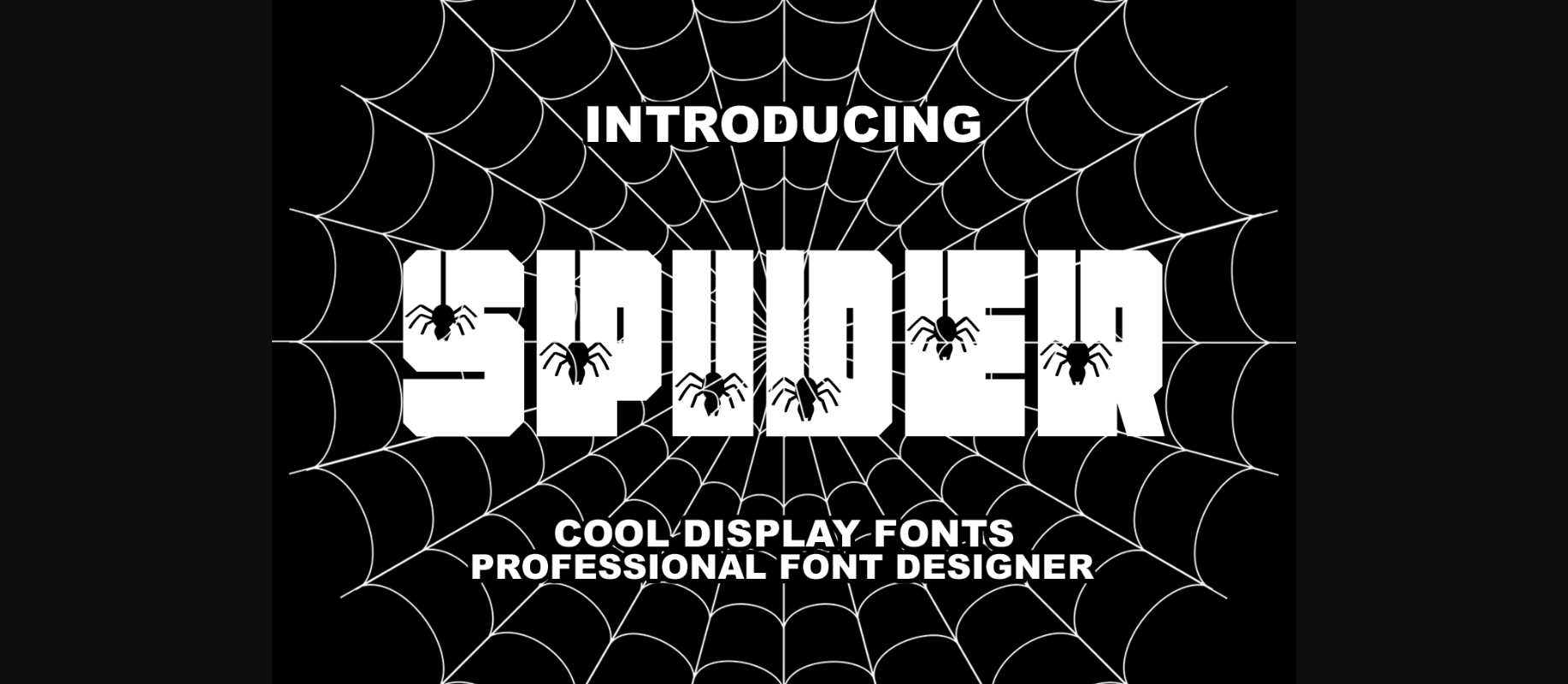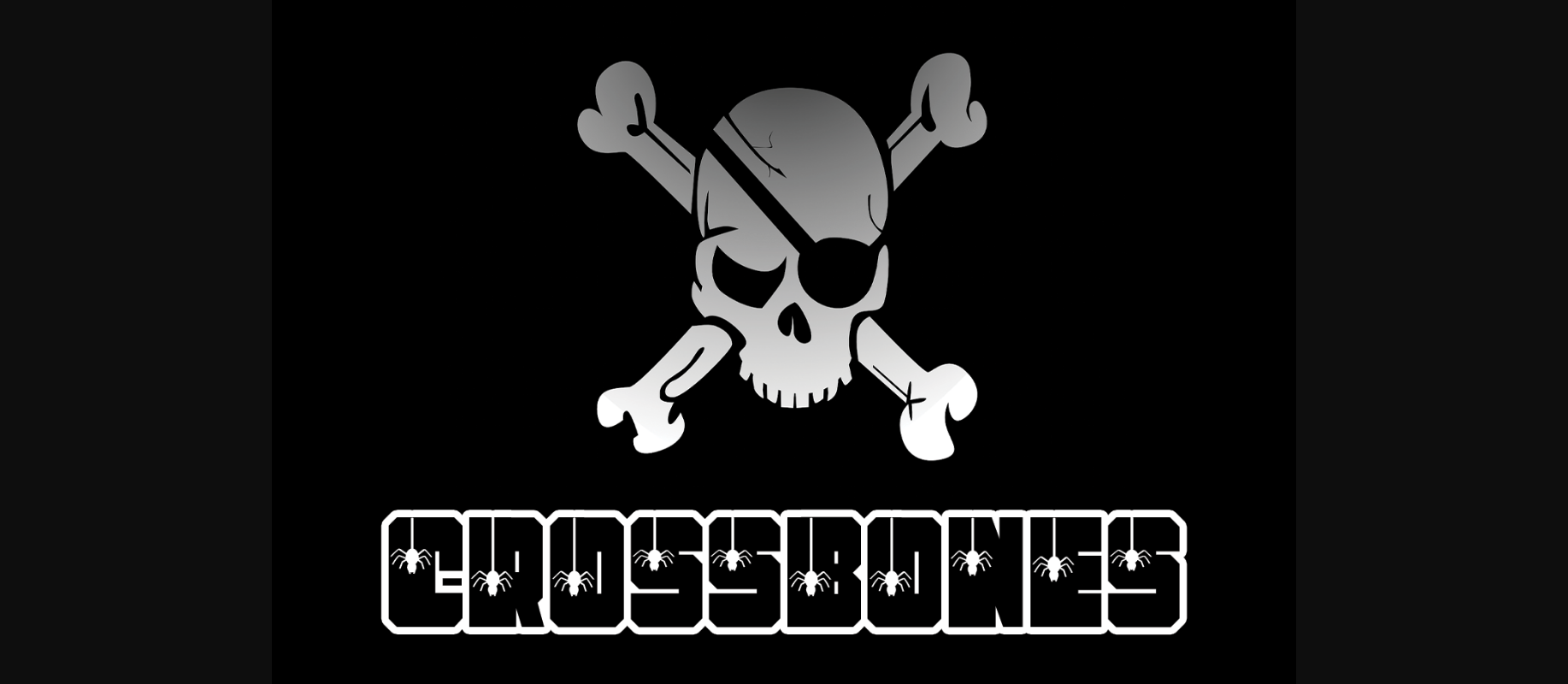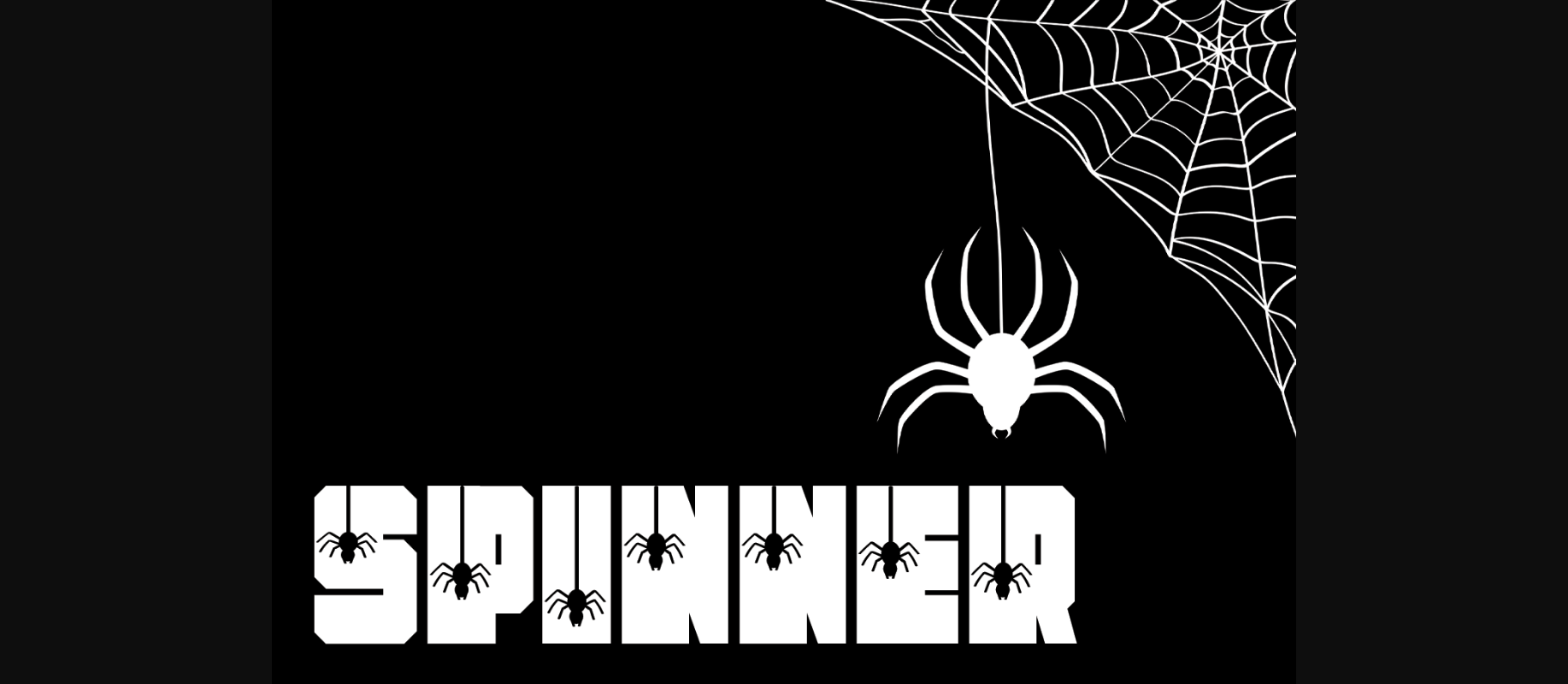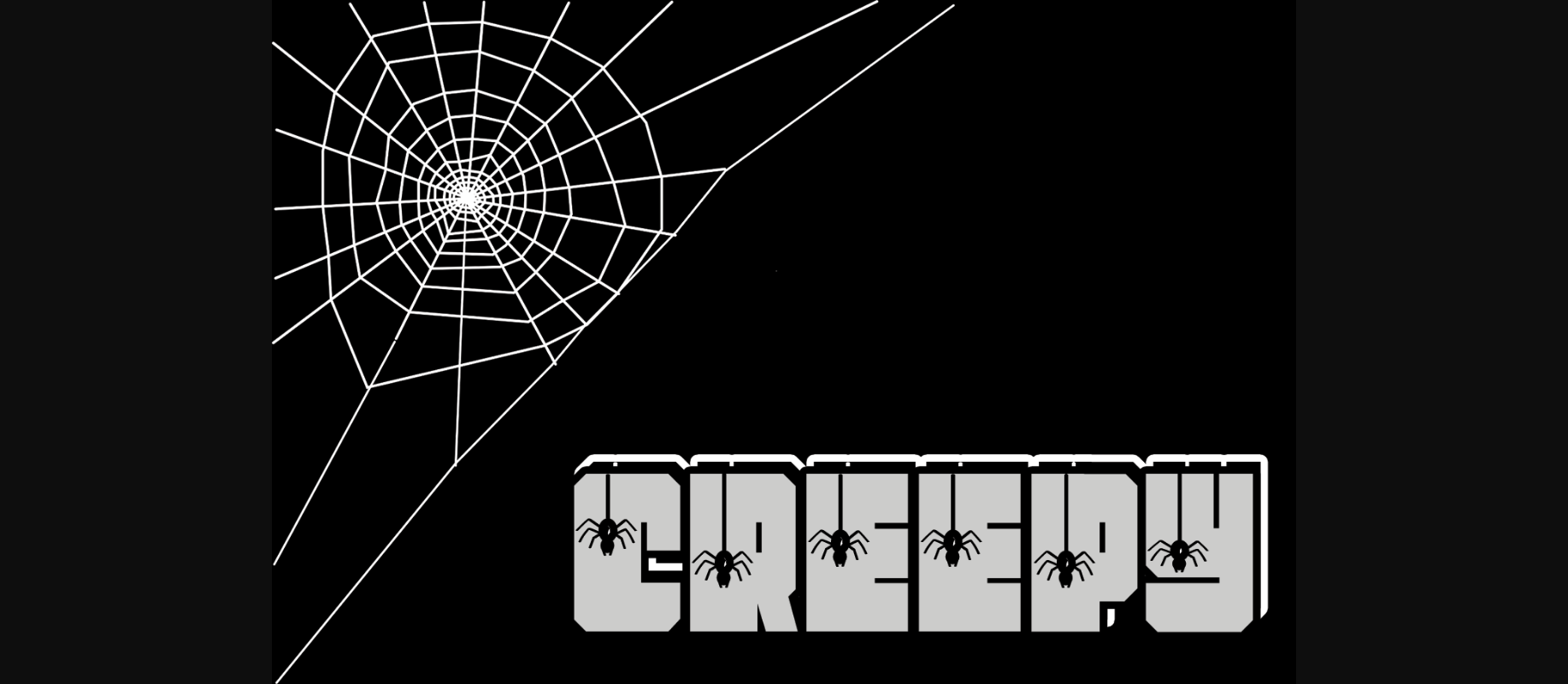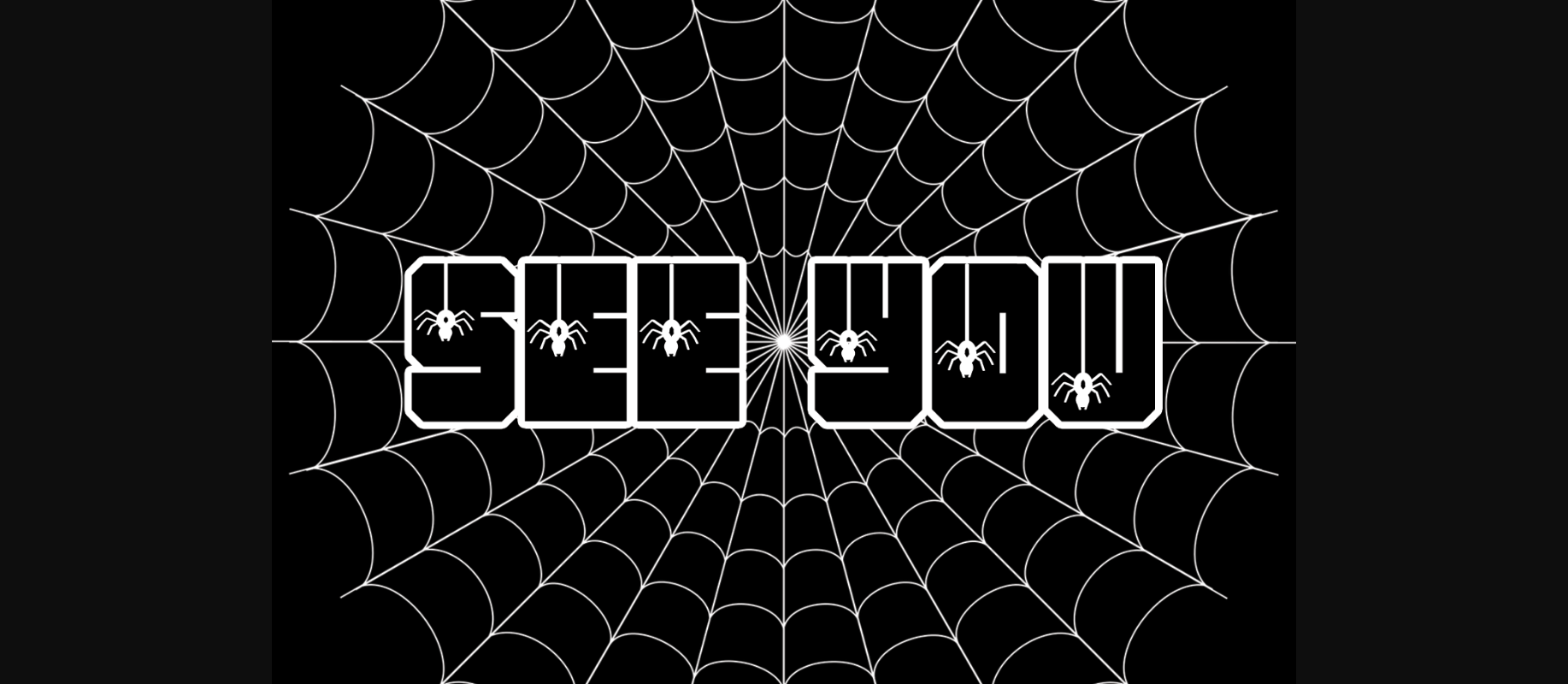
Spider Font
About Spider Font
Spider is a cool, unique and quirky decorative font, featuring little spiders on each character. It embodies playfulness and authenticity and is the perfect choice for any children activity or school project. Add this chunky lettered font to your designs and notice how it makes them come alive!